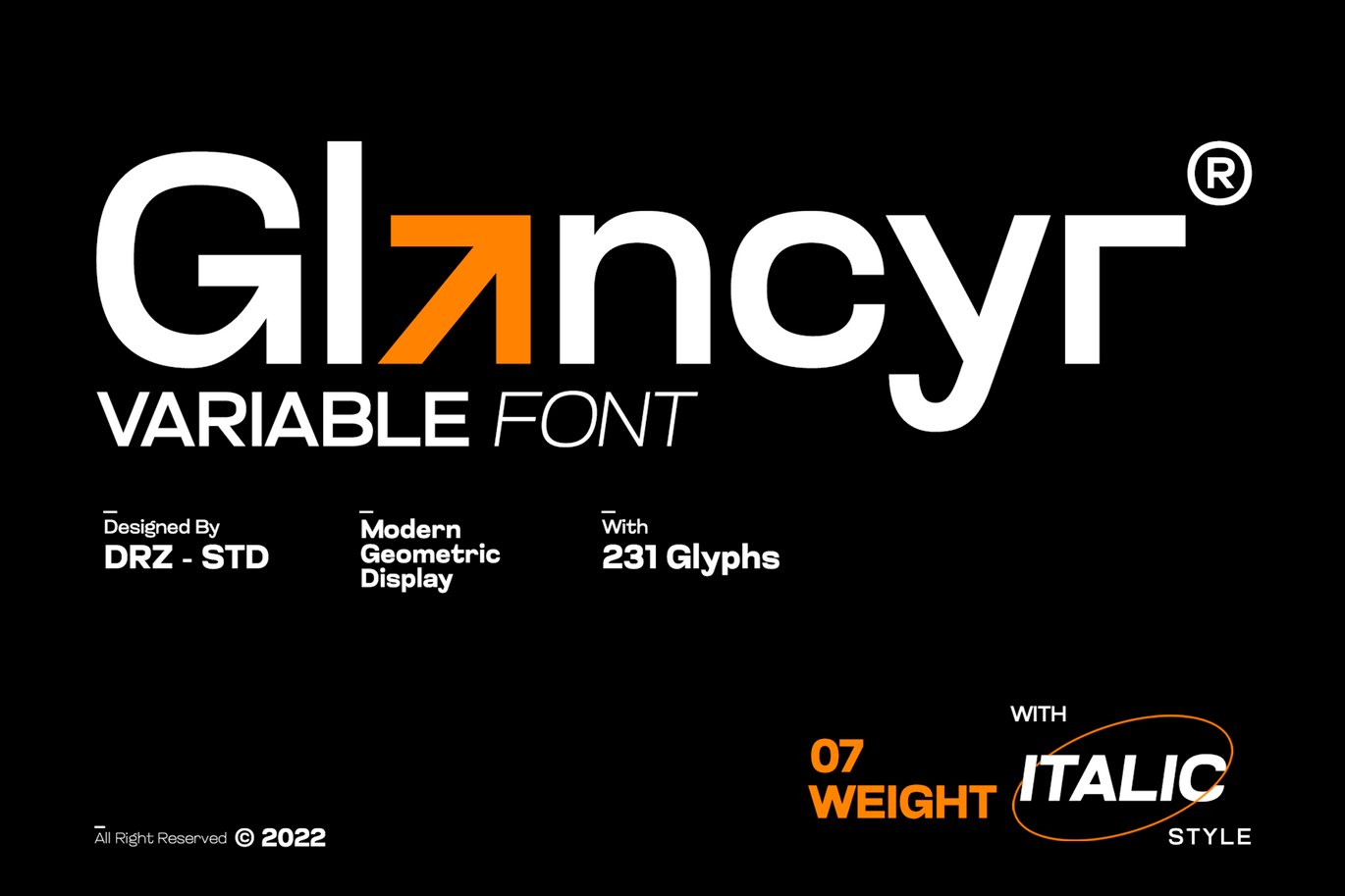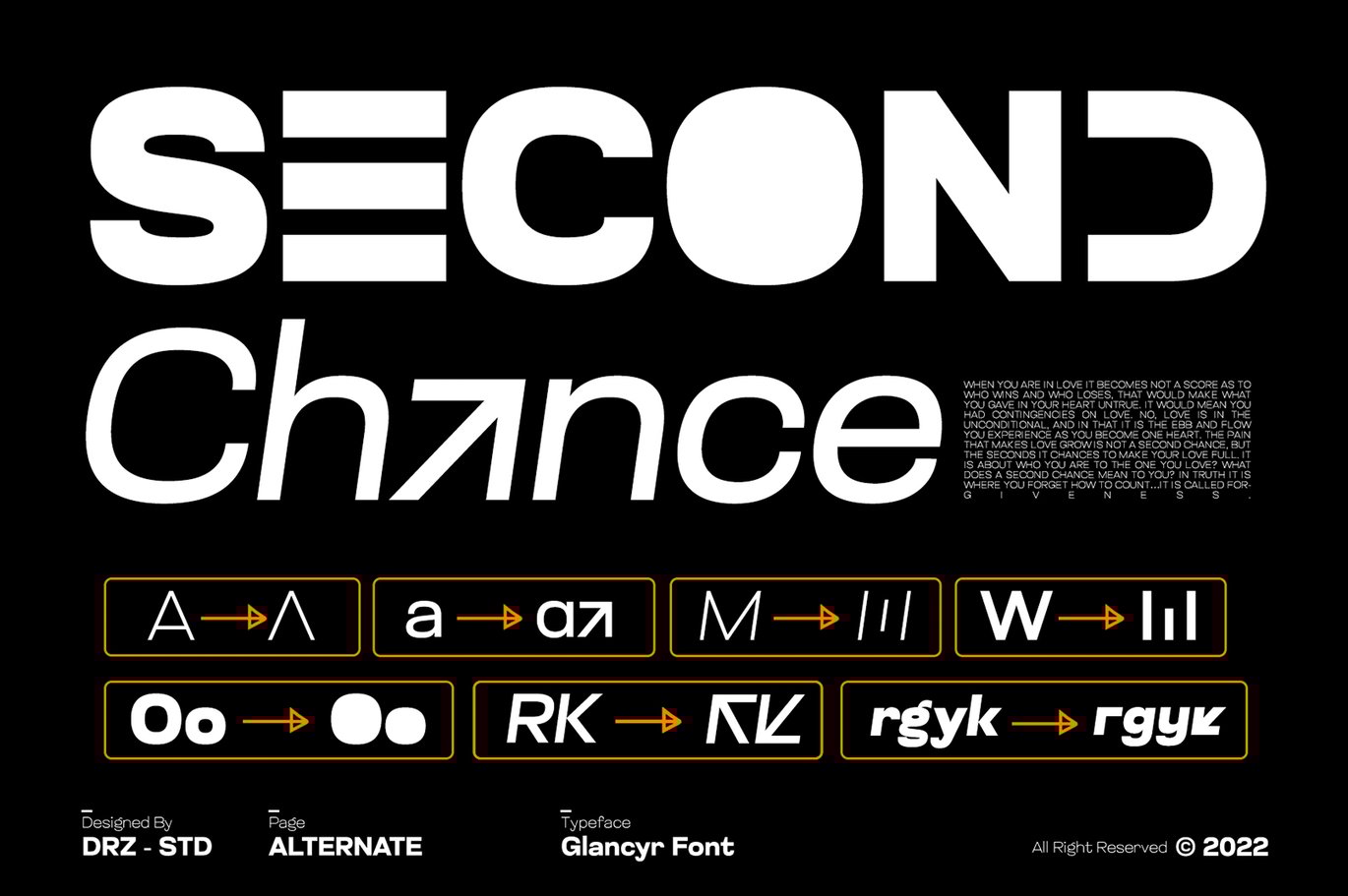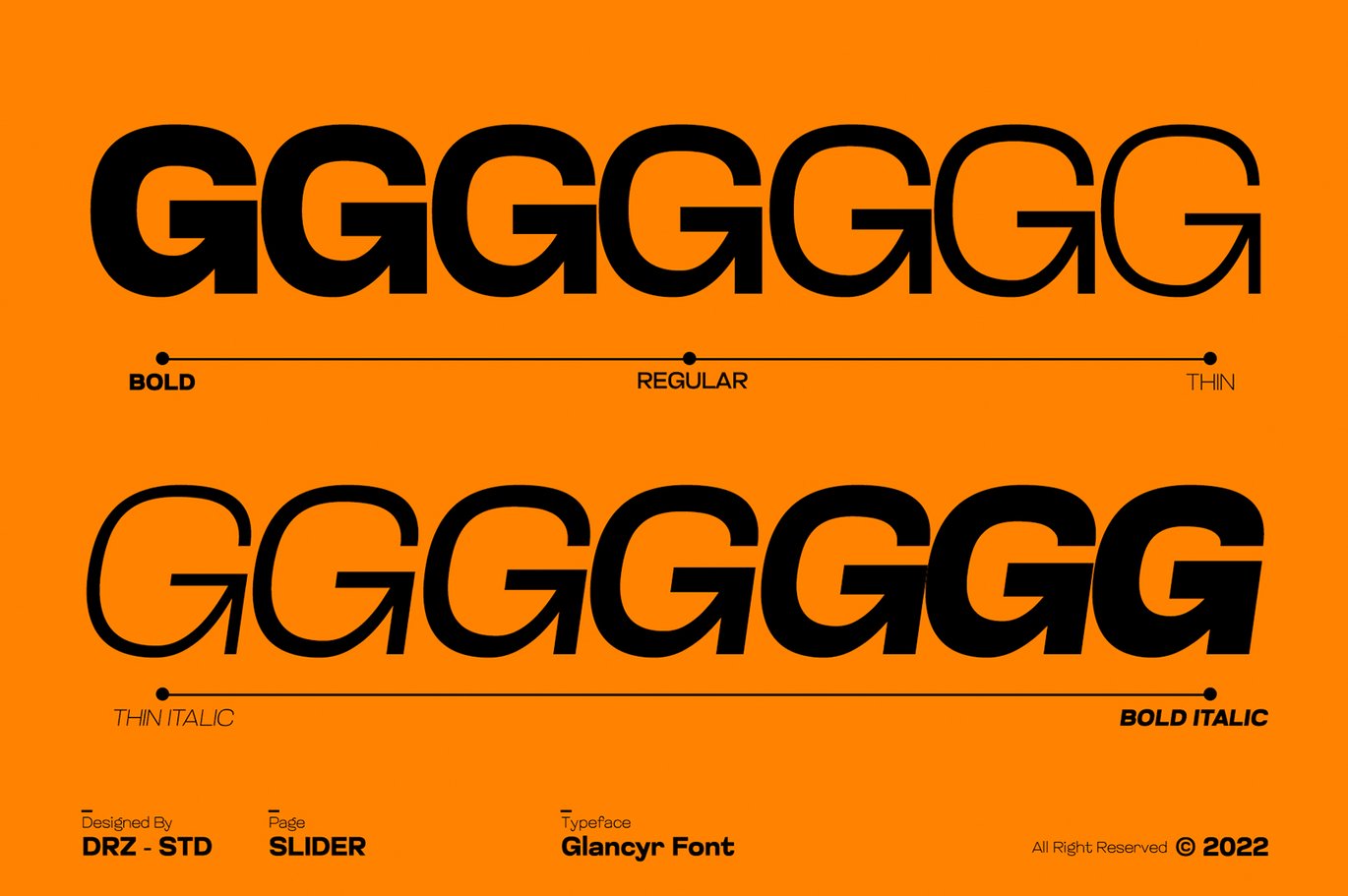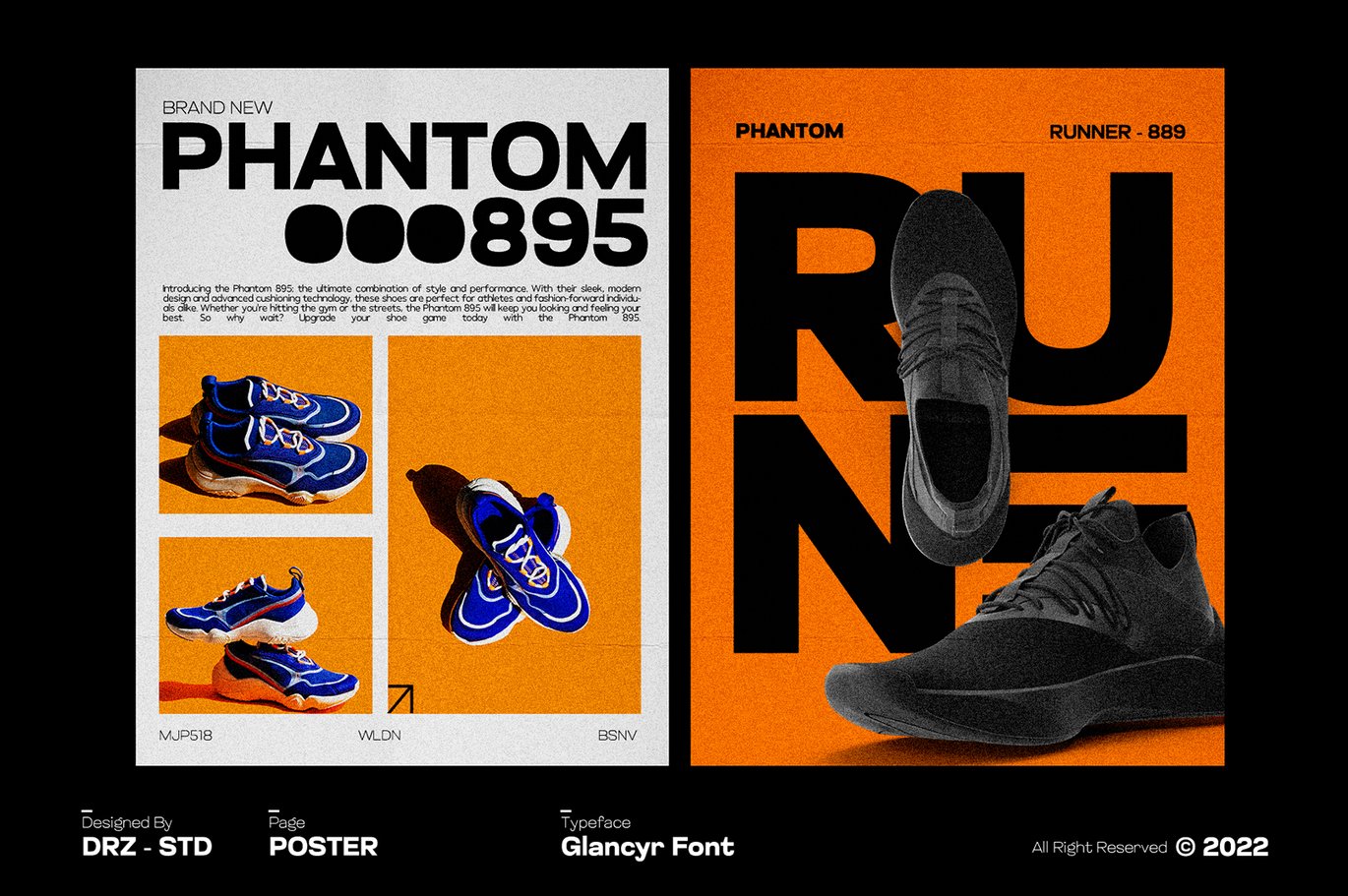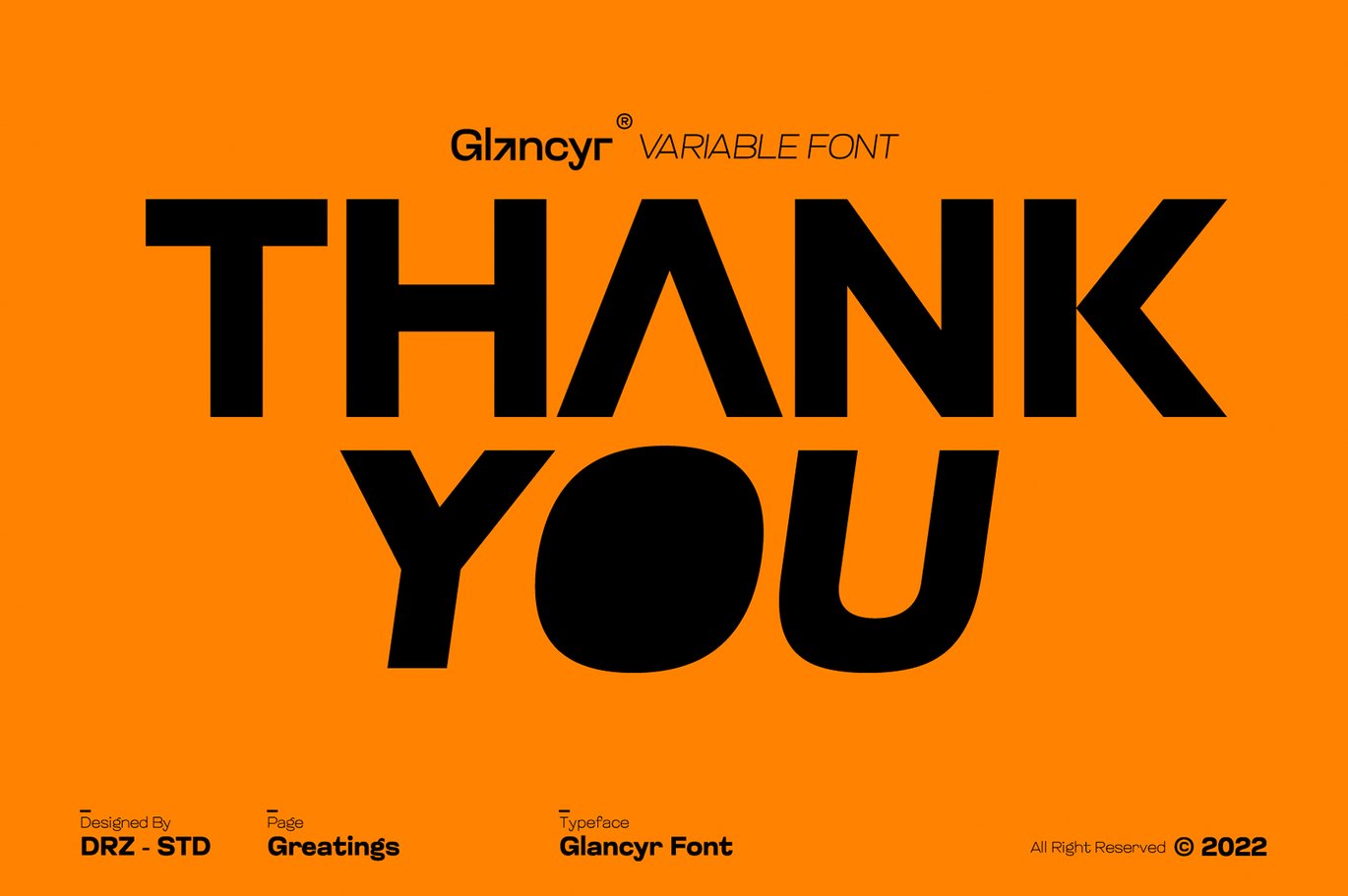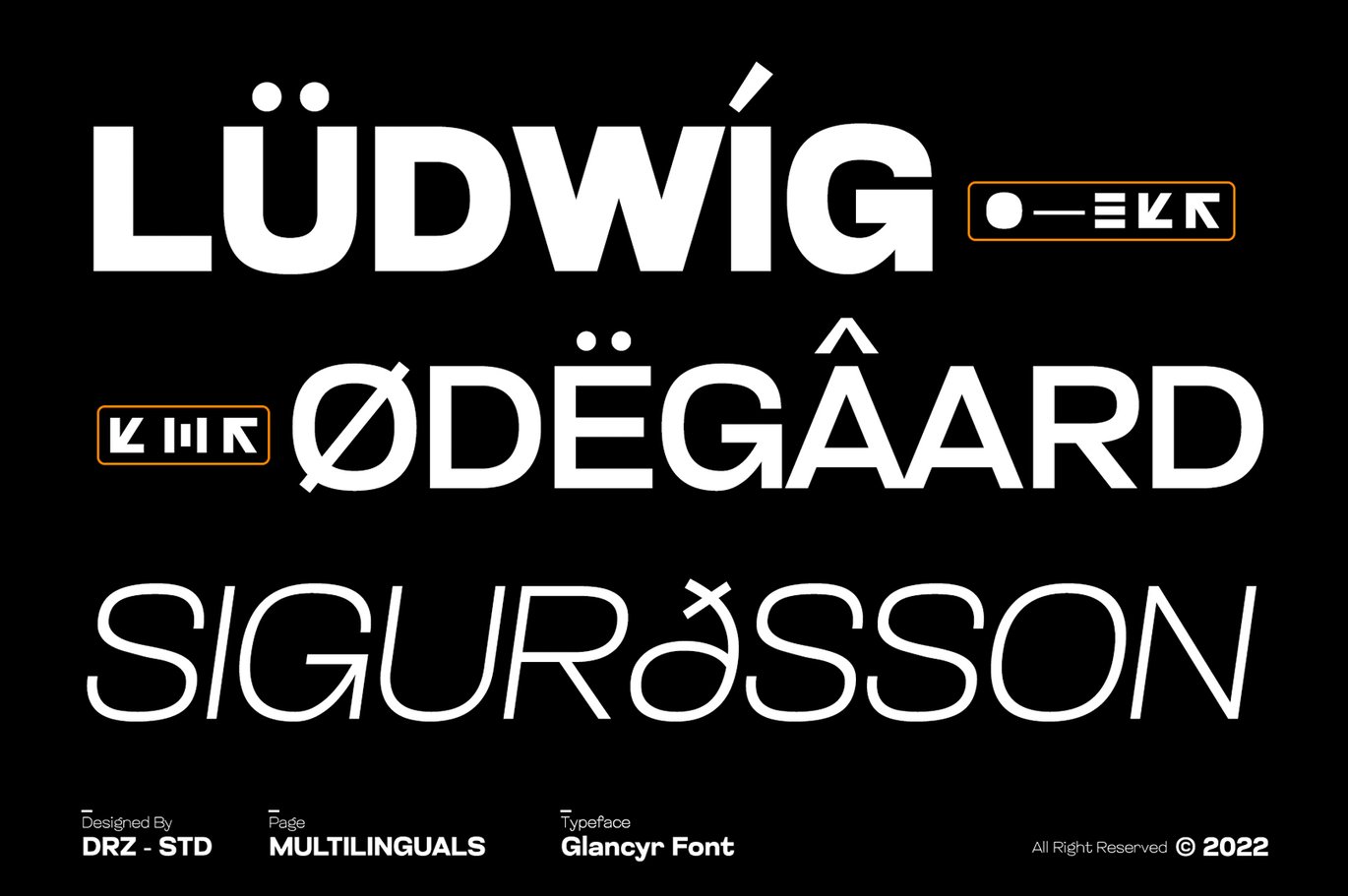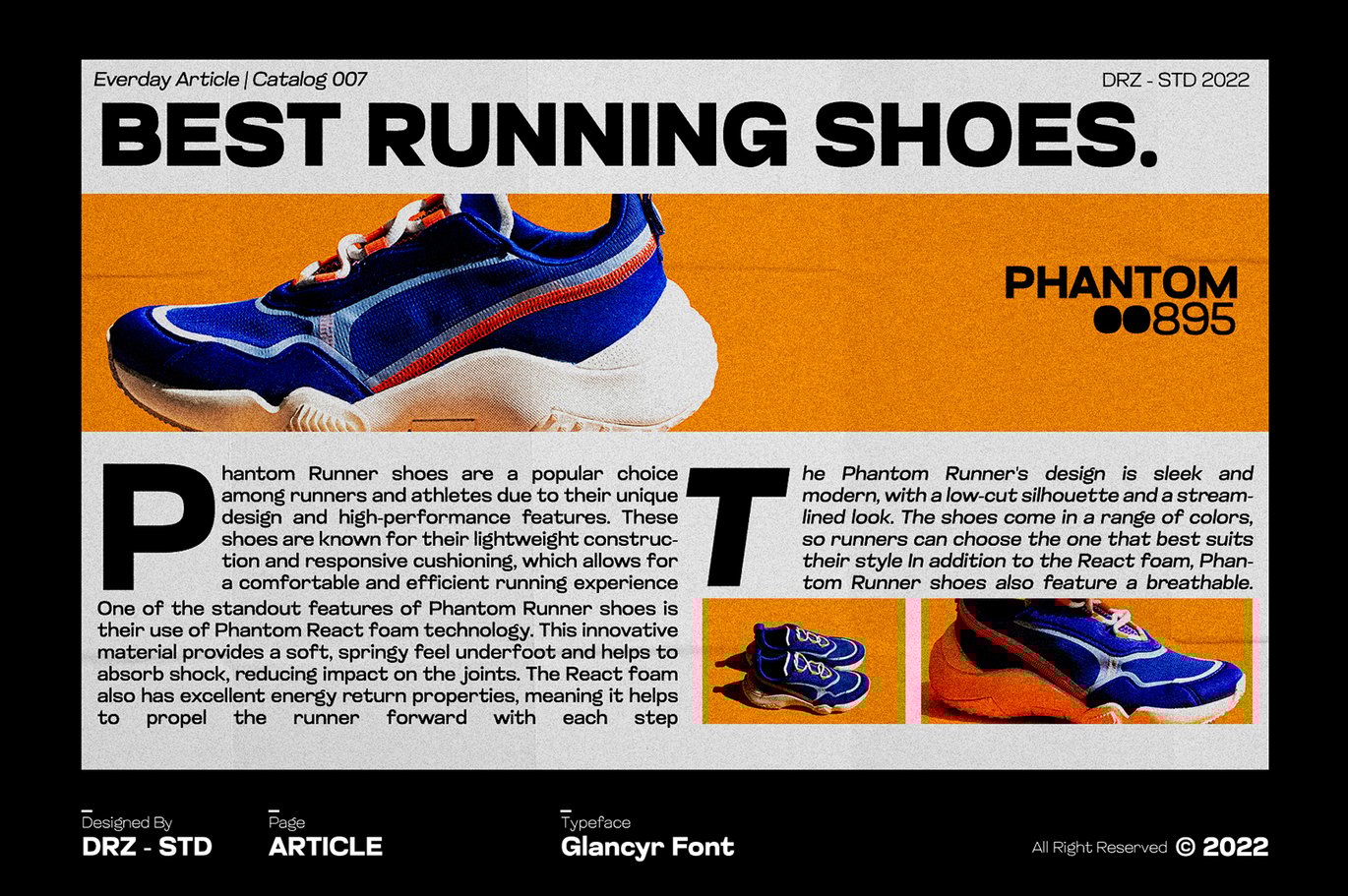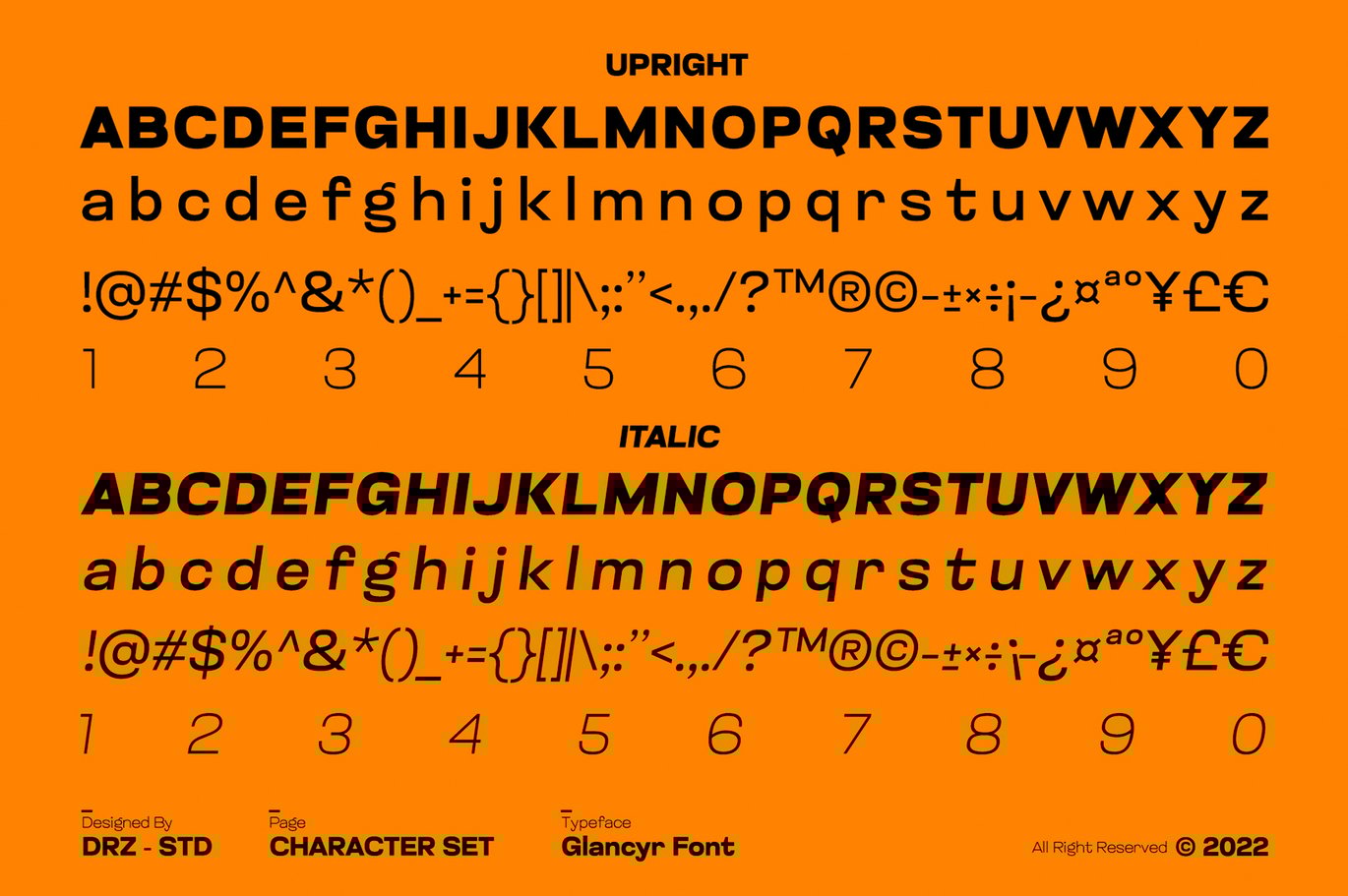
Glancyr – Modern Geometric Font
Glancyr – Modern Geometric Font from Drizy Studio. Offering all the styles you need for your projects.
Glancyr features:
Up Right & Italic
Ligatures
Alternate